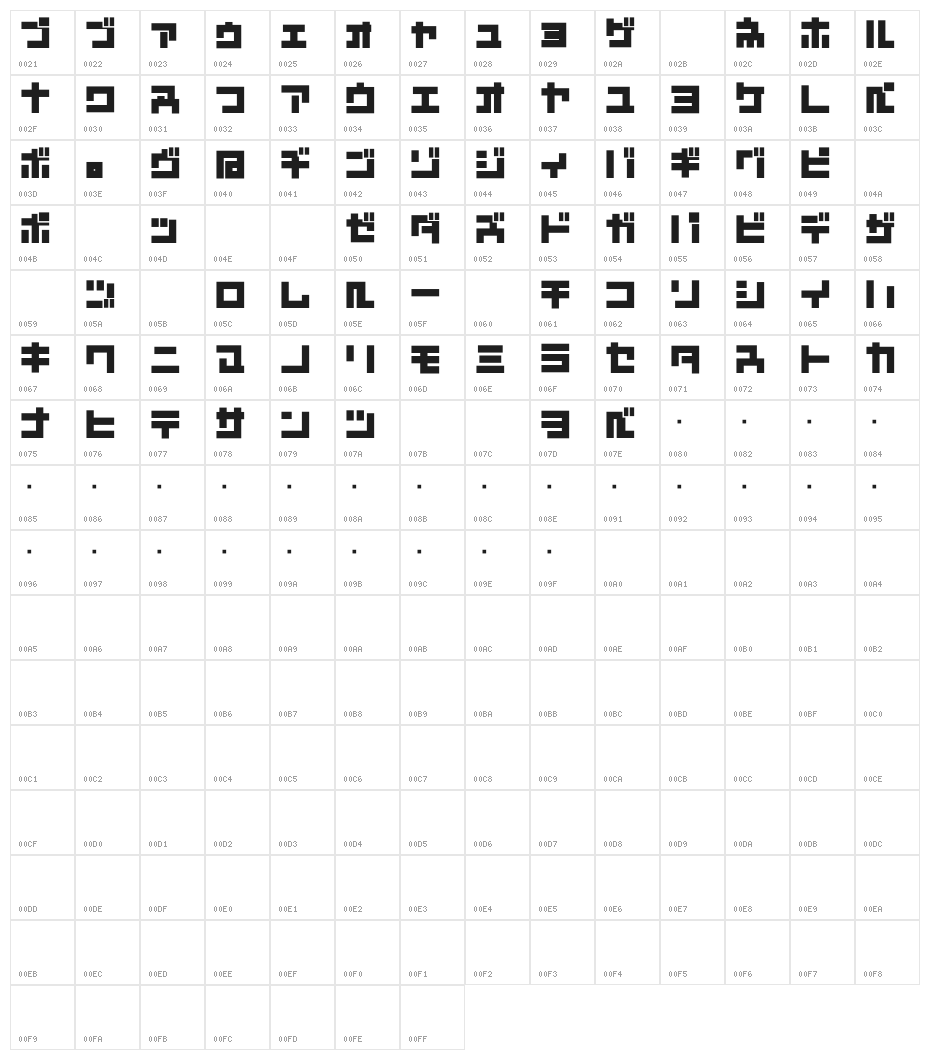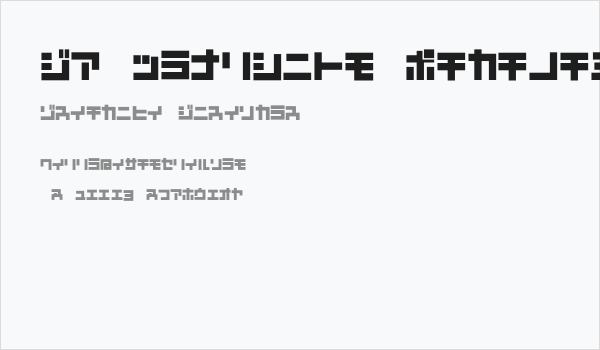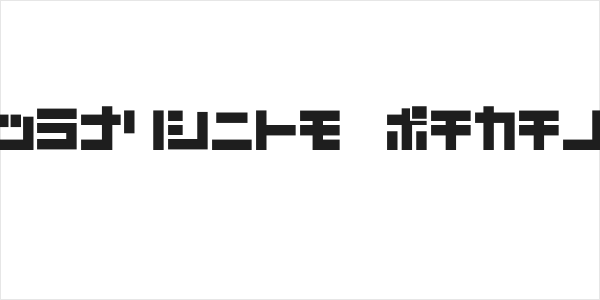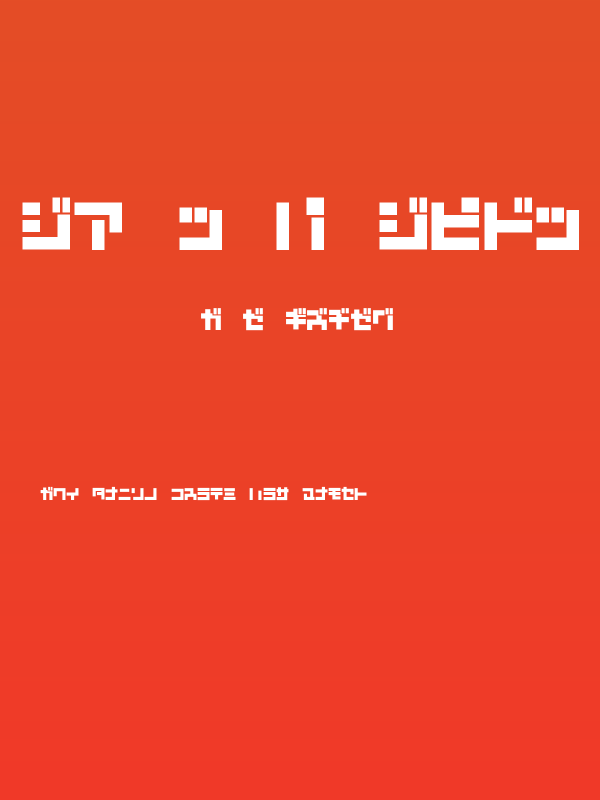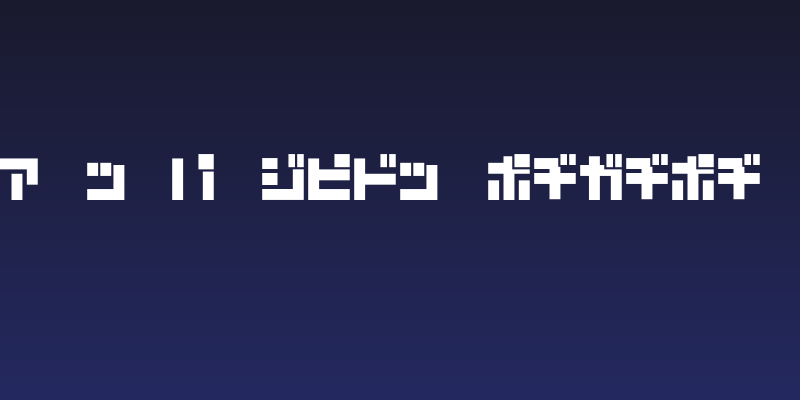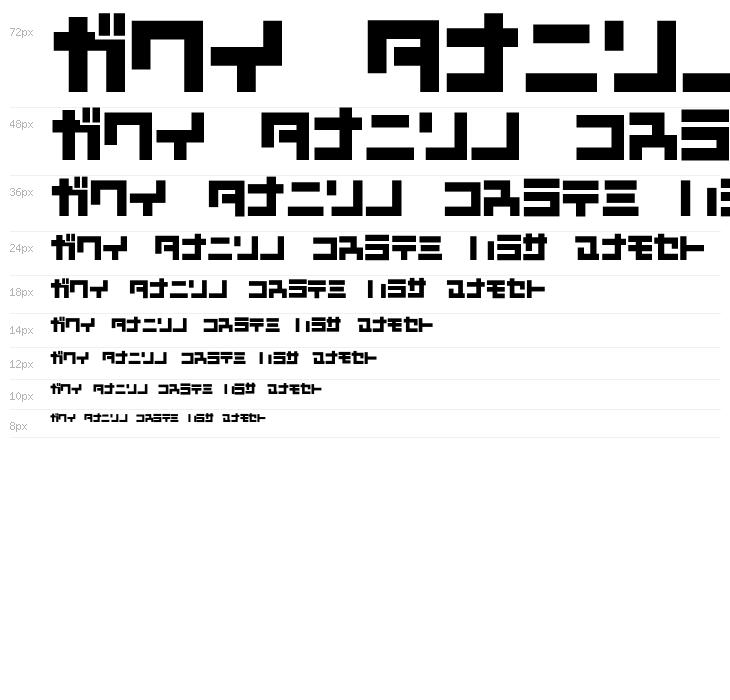
D3 Mouldism Katakana Font
D3 Mouldism Katakana Description
This font features a bold, geometric style with a distinctly modern and digital aesthetic. The characters are constructed with sharp, angular lines and block-like shapes, giving it a futuristic and tech-inspired appearance. The uniformity in stroke width across all characters contributes to a cohesive and structured look. The font's design is reminiscent of pixel art or retro video game graphics, making it ideal for projects that aim to evoke a sense of nostalgia or digital innovation. Its clear and legible form ensures readability even at smaller sizes, while its unique style makes it stand out in larger displays.
Proposed ProjectsIdeal for video game design, tech branding, digital art projects, and futuristic-themed posters.